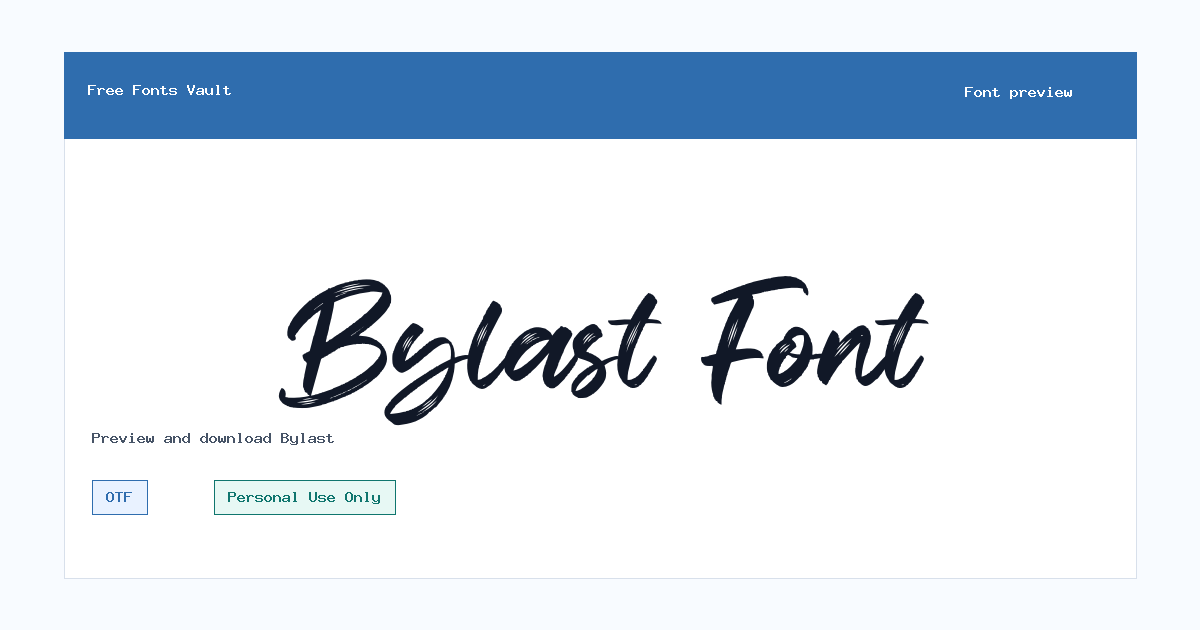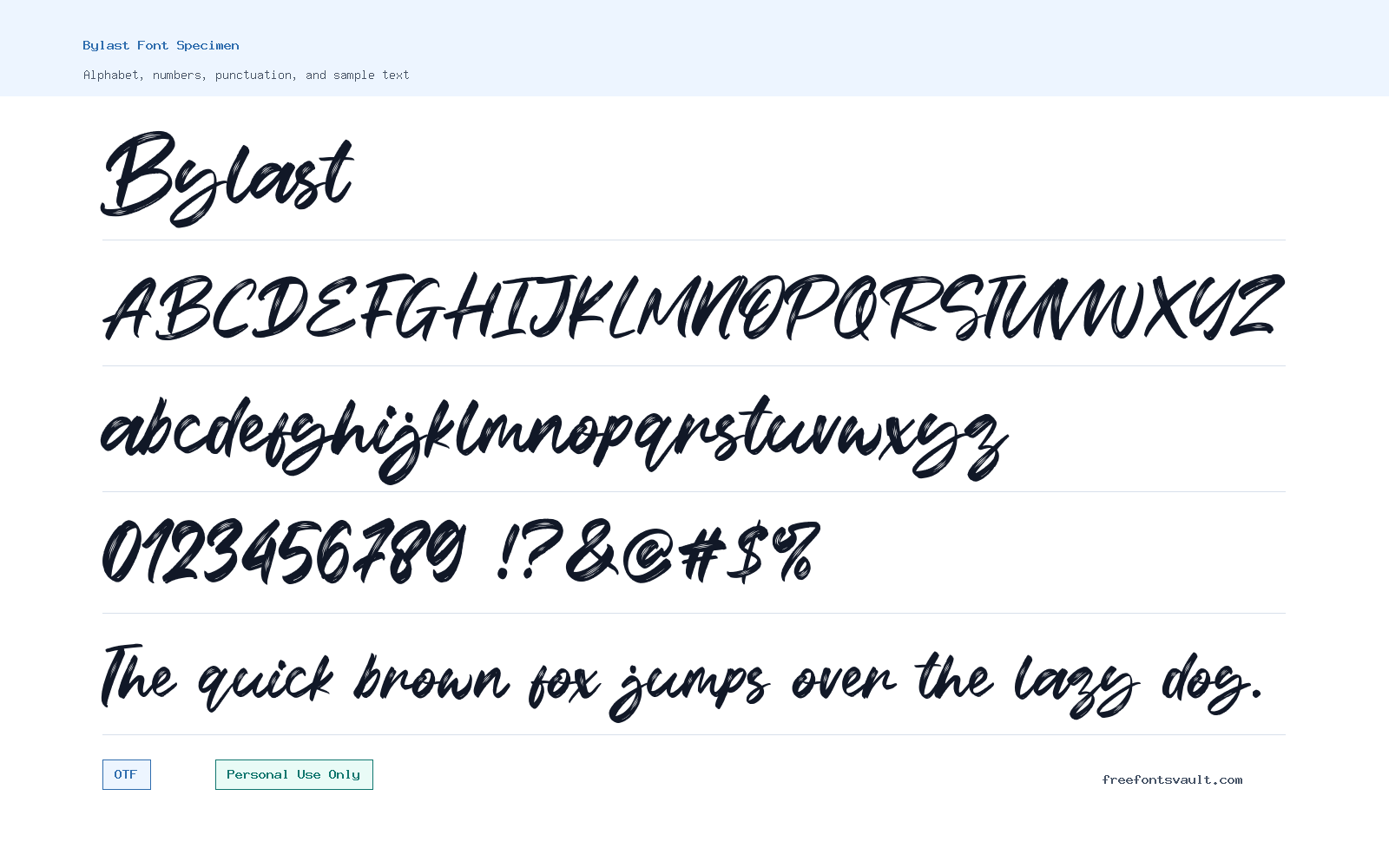
Bylast
Bylast Font
Bylast is a brush script font with a handwritten feel, built for short pieces of text that need movement and a personal touch. The font file is provided in OTF format and is marked for personal use only.
About Bylast
Bylast has the look of a connected brush script, with smooth joins and lively strokes that work best when the words are allowed to breathe. It is not a neutral text face or a long-reading font; it is closer to a display script for names, titles, quotes, and decorative wording. The source page describes it as a script handwriting font with a natural brush effect, and that matches the kind of use visitors should test first: short phrases where the letter shapes can show their rhythm without becoming crowded.
Use the preview box to check your own wording before downloading. Brush scripts can change a lot depending on the exact letters used, especially where uppercase letters, repeated letters, and tight letter pairs meet. Try the name, heading, or phrase you plan to use rather than judging it from a sample word alone. For clearer layouts, pair Bylast with a simple sans serif or a calm serif for supporting text, and keep Bylast for the main accent. Avoid using it for paragraphs, small captions, dense menus, or anything that must stay highly readable at a glance.
• Connected brush-script styling with a handwritten, display-focused character
• Personal quote graphics, name designs, invitations, and social media headings
• Logo drafts, packaging mockups, labels, and decorative titles for non-commercial projects
What kind of font is Bylast?
Bylast is a brush script style font with connected, handwritten-looking strokes. It is better for display words and decorative headings than for long paragraphs.